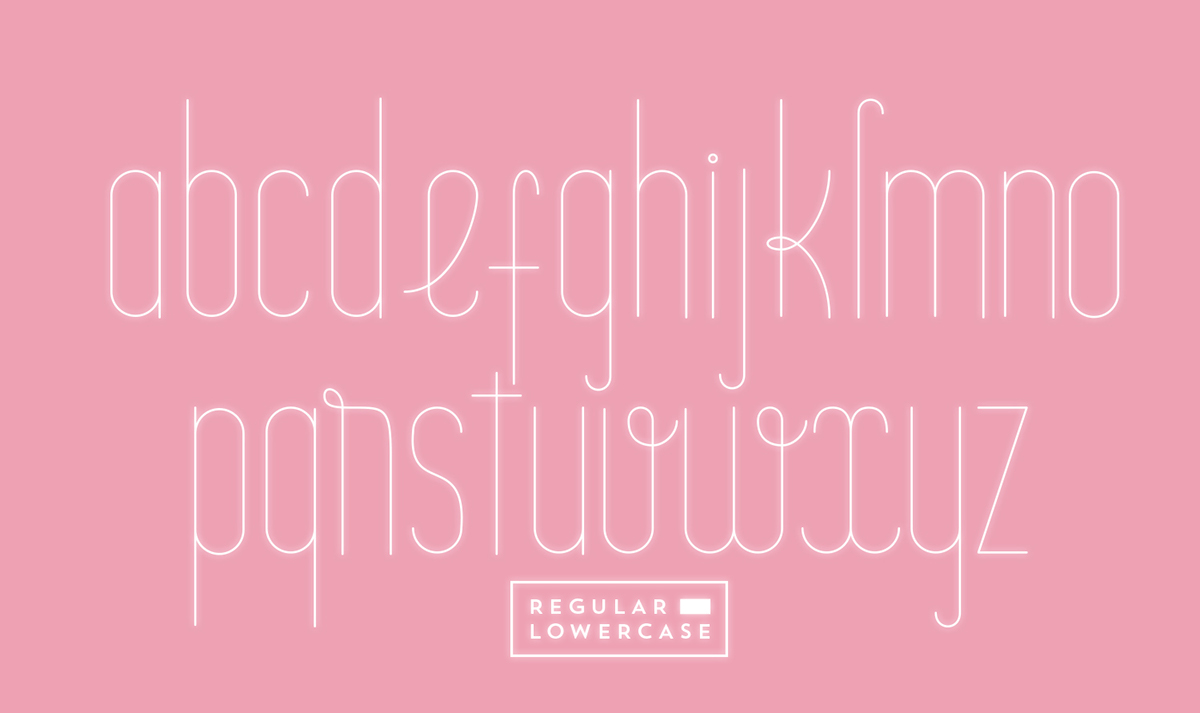
Introduction
Arcadia is a generically modern hairline sans-serif typeface that have fixed width of line and this font is designed by Manh Nguyen. With its ultra light stroke, sympathy size and balanced feminine text structure, Arcadia is highly suitable for
magazine titles, modern logos and other purposes.